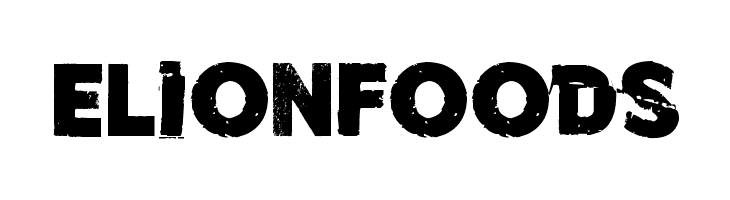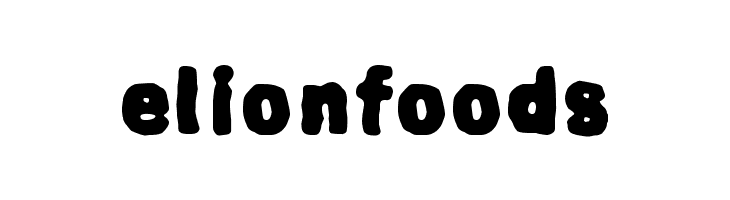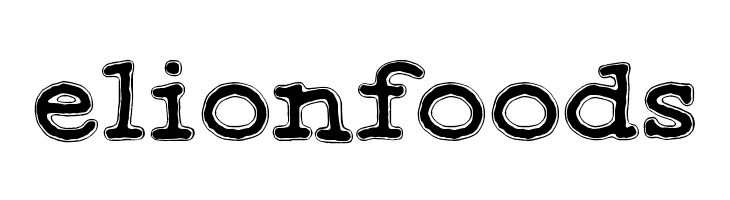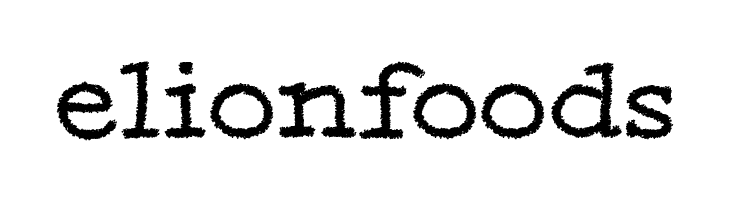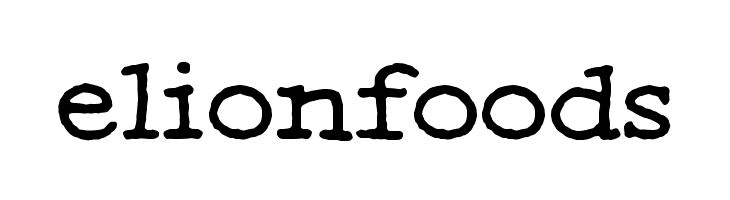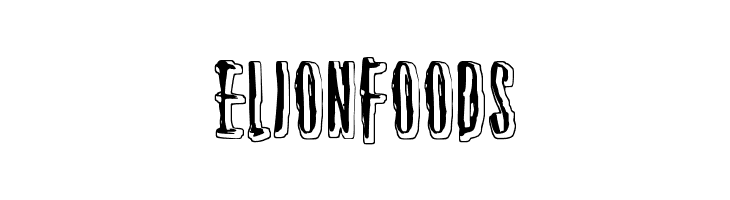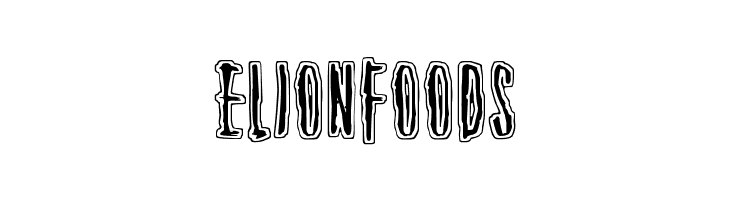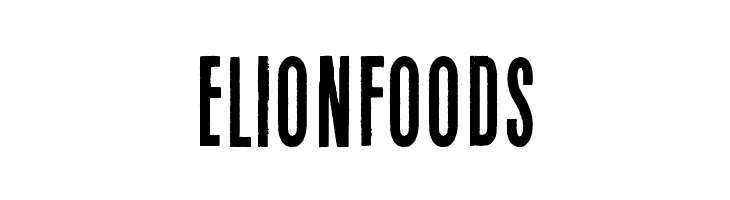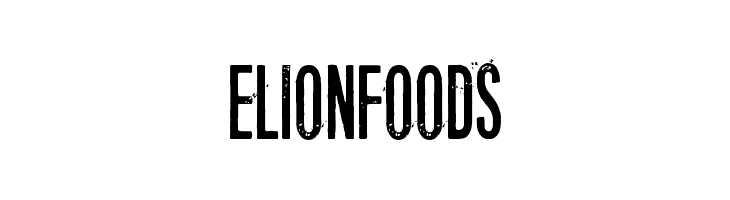
A bold, distressed font with a rugged, grunge aesthetic.
A bold, decorative font with outlined characters and a playful style.
A classic serif font with a textured, vintage appearance.
A vintage typewriter-style font with a distressed, authentic texture.
A bold, hand-drawn font with textured outlines and an edgy style.
A bold, decorative font with a hand-drawn, distressed look.
A bold, condensed font with a distressed, vintage texture.
A bold, distressed font with a vintage, grunge aesthetic.
A bold, distressed font with a grunge, vintage style.